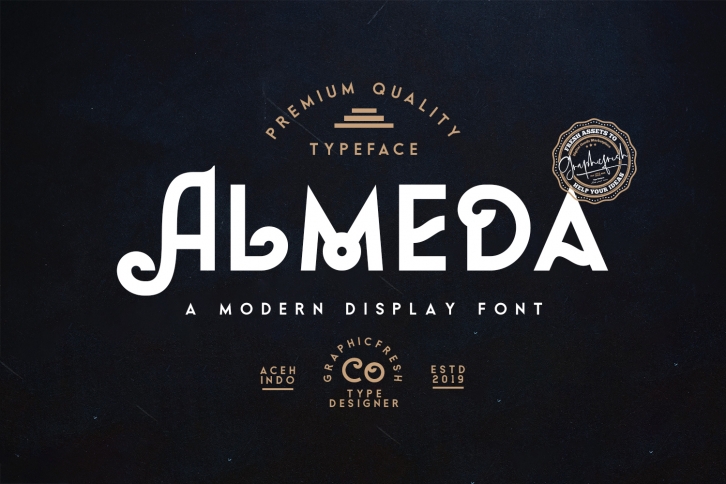
Almeda A Modern Vintage is a great font that was designed by Graphicfresh. Imagine the amount of combinations you can create using this font! The archive is 14.12 MB and it was released on February 20, 2019. Almeda A Modern Vintage looks beautiful on wedding invitations, greeting cards, logos, posters, labels, t-shirt designs, logos, business cards and is perfect for use in ink or watercolor works, fashion, magazines, packaging and food menus, children's books and more!